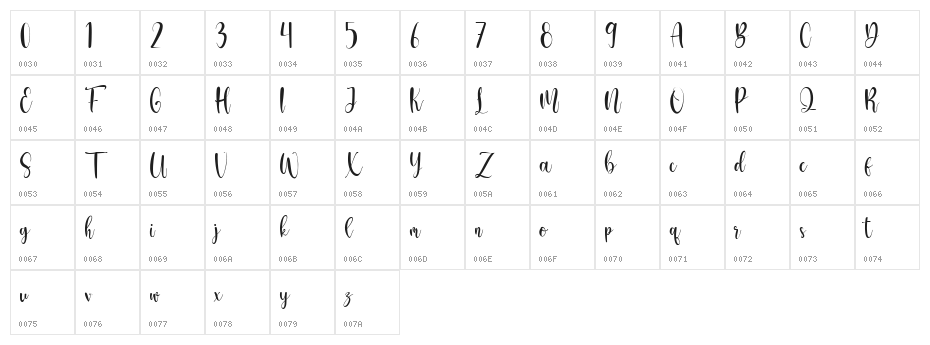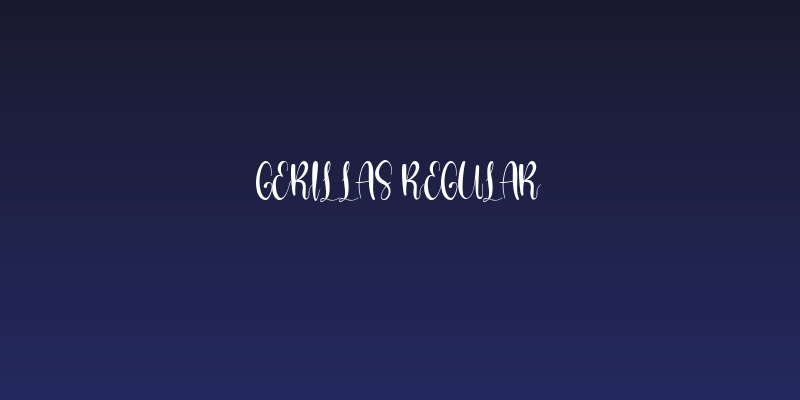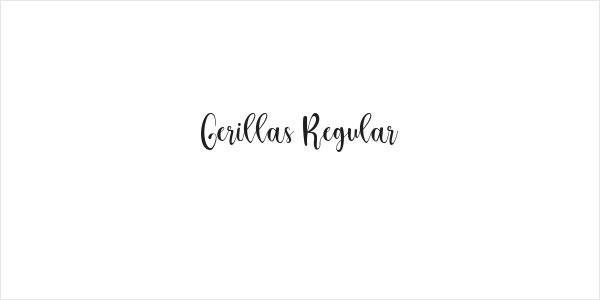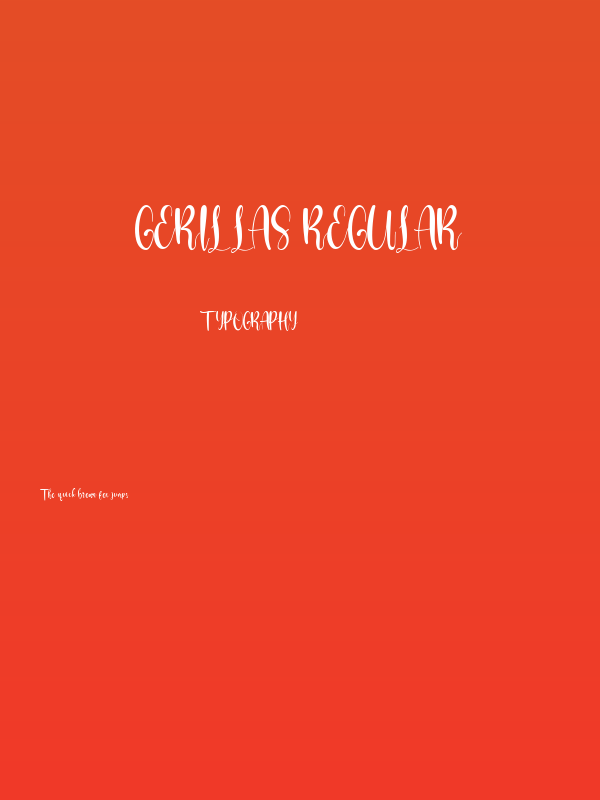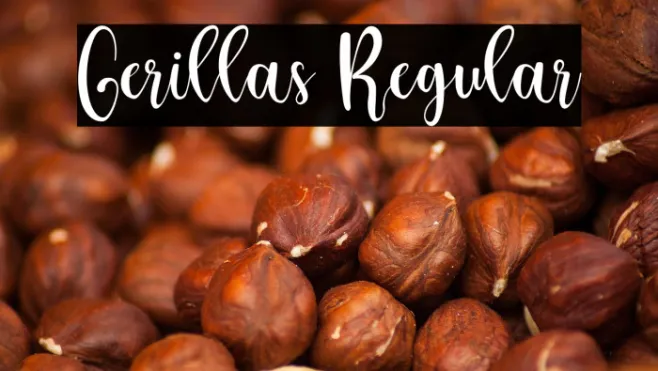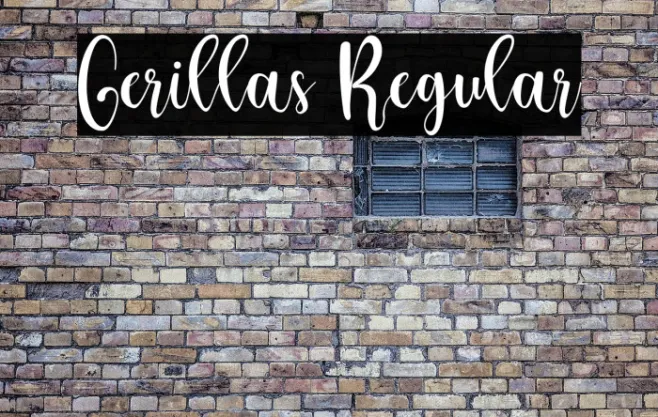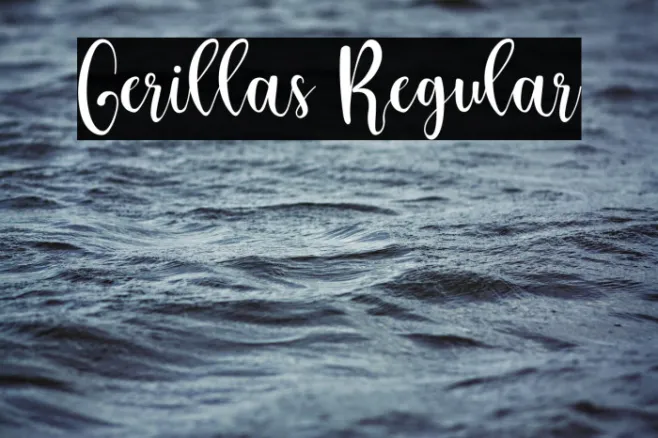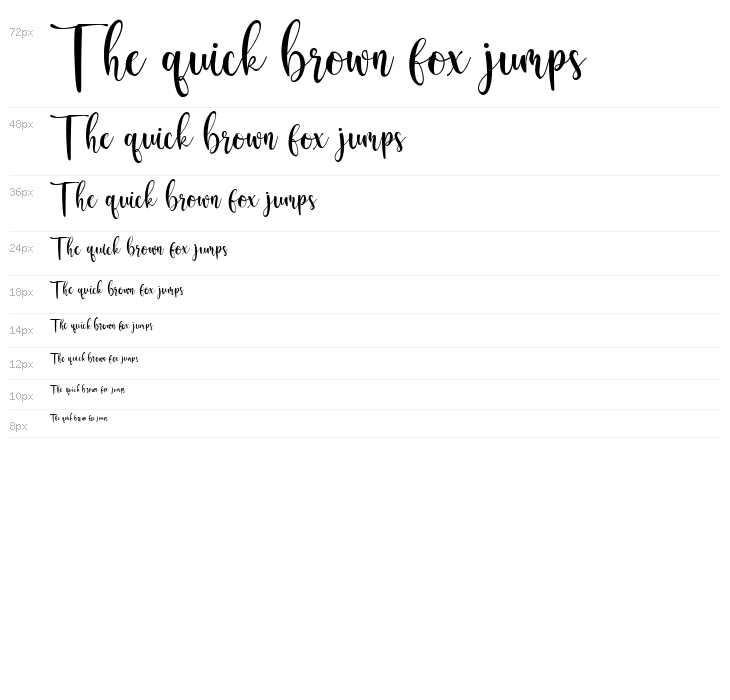
Gerillas Regular Font
Gerillas Regular Description
This font exhibits a flowing, cursive style with elegant, sweeping strokes that give it a sophisticated and artistic appearance. The uppercase letters are bold and prominent, featuring exaggerated loops and flourishes that add a decorative flair. The lowercase letters maintain a consistent flow, with smooth connections between characters, enhancing its script-like quality. The numerals are distinct yet harmonize well with the overall style, maintaining the same fluidity and elegance. This font is ideal for projects that require a touch of elegance and creativity, such as invitations, branding, and decorative headings.
| Use Case | Logos, Invitations, Decorative Headings |
| Proposed Projects | Ideal for wedding invitations, branding, decorative headings, and artistic projects. |